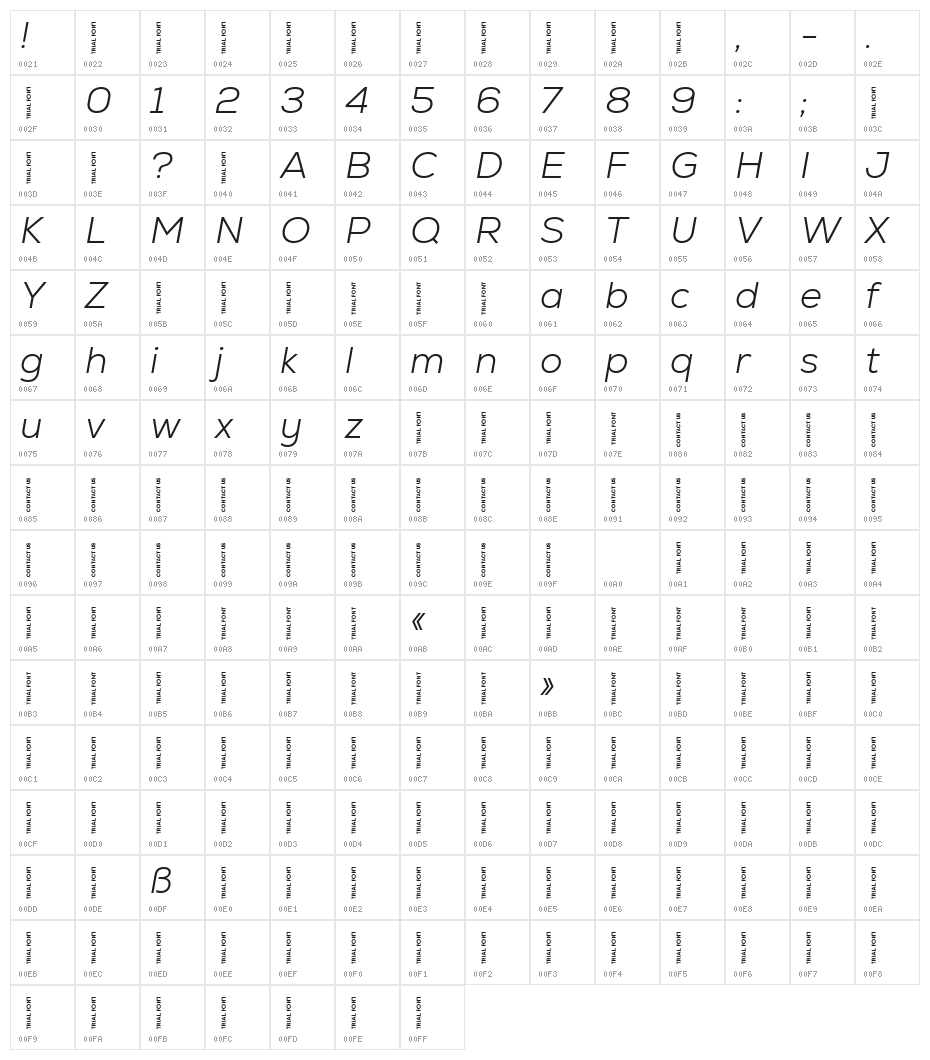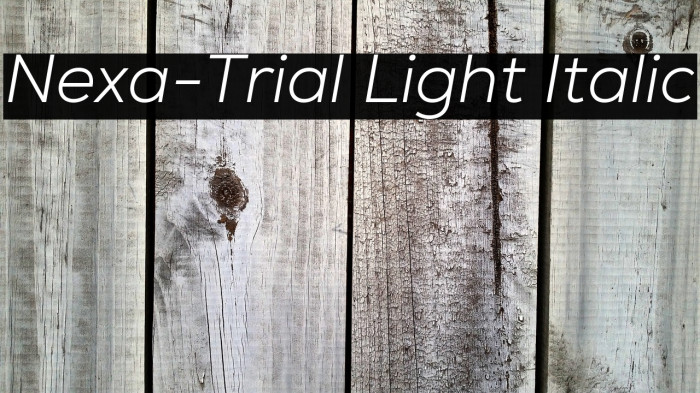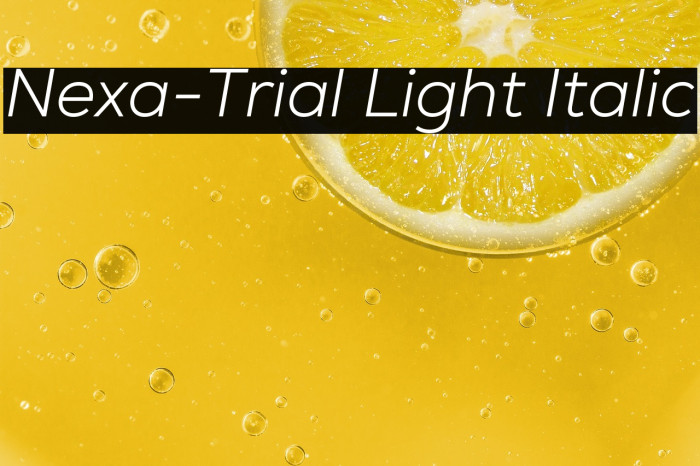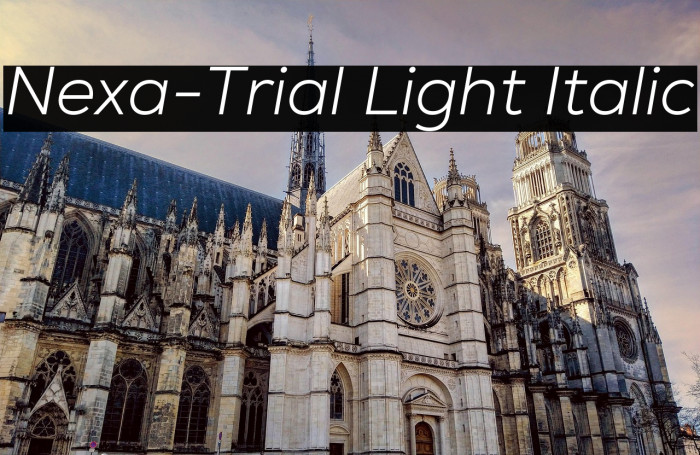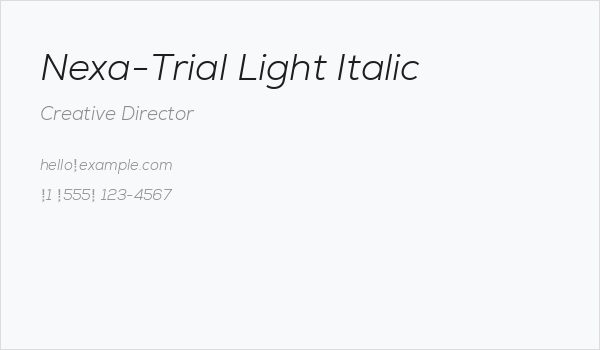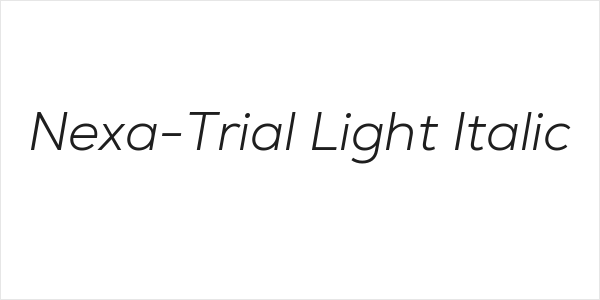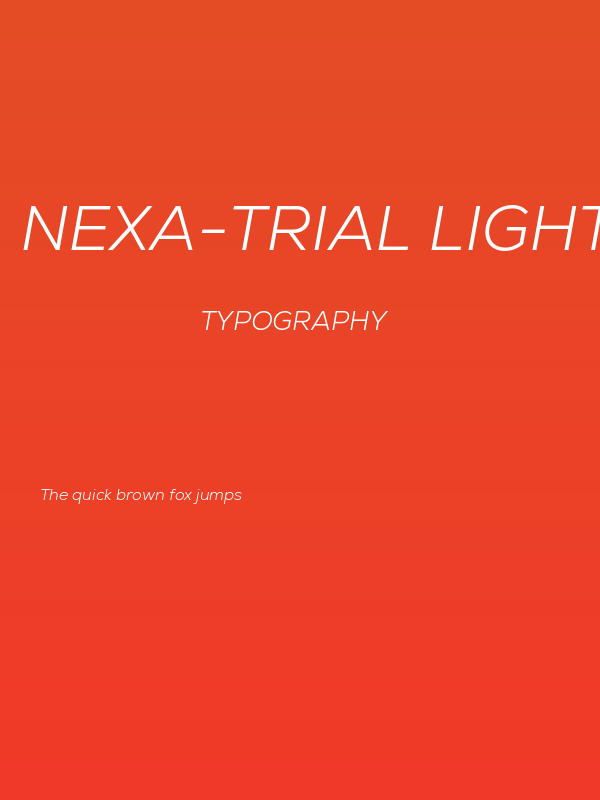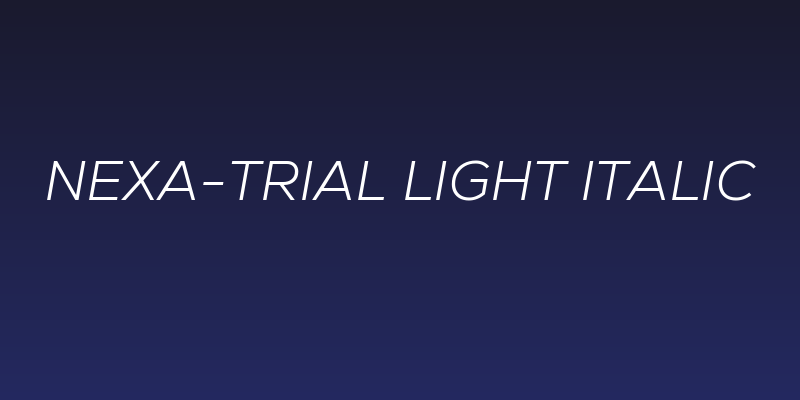
Nexa-Trial Light Italic Font
Nexa-Trial Light Italic Description
This font features a sleek and modern design with a clean, geometric structure. The characters are slightly elongated with a consistent stroke width, giving it a light and airy appearance. The italic style adds a dynamic and elegant touch, making it suitable for contemporary designs. The font maintains excellent legibility across both uppercase and lowercase letters, as well as numerals and special characters. Its simplicity and clarity make it versatile for various applications.